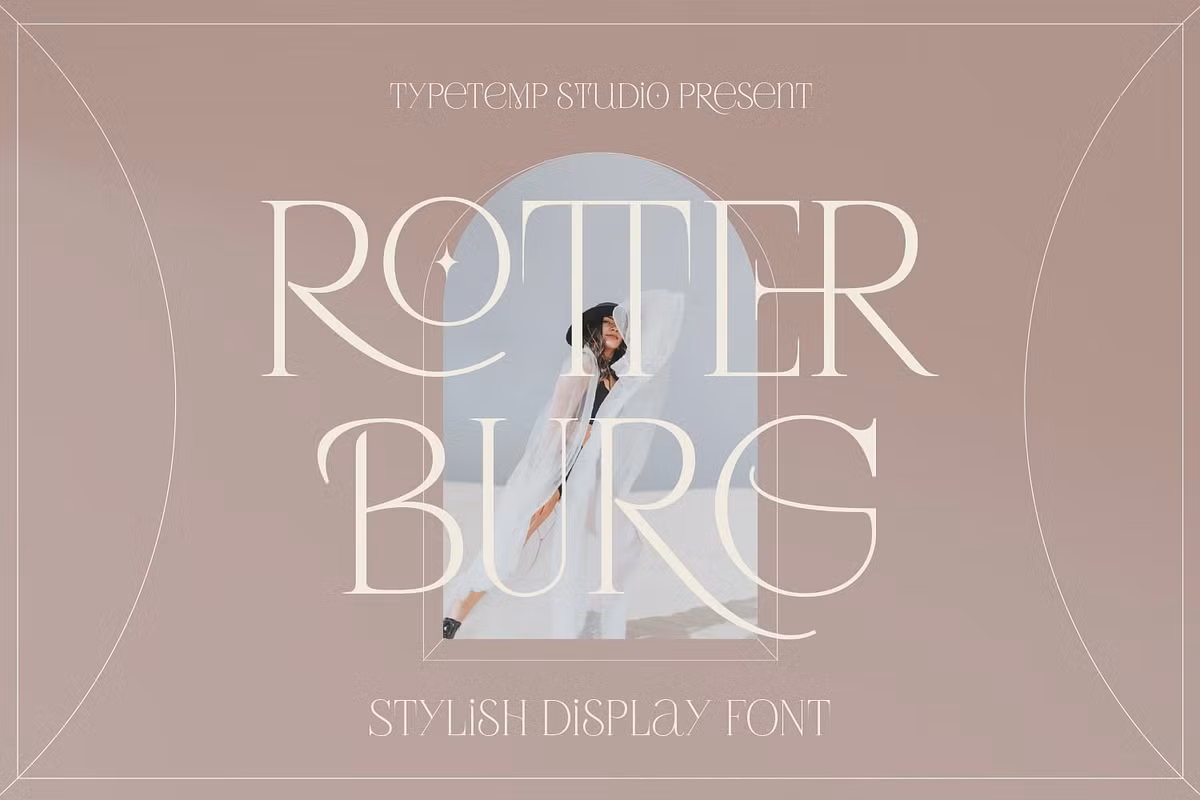
Rotterburg Stylish Display Font Free Download is a sophisticated and eye-catching typeface designed for luxury branding, editorial headlines, logos, and creative posters. Its artistic curves and stylish details make it perfect for designers aiming to create a bold, upscale impression. Please note that you must purchase this font for commercial use, but it is available as a free download for testing purposes. Add a dramatic flair to your next design with Rotterburg Stylish Display Font Free Download and discover how elegance and creativity blend seamlessly in this unique font.